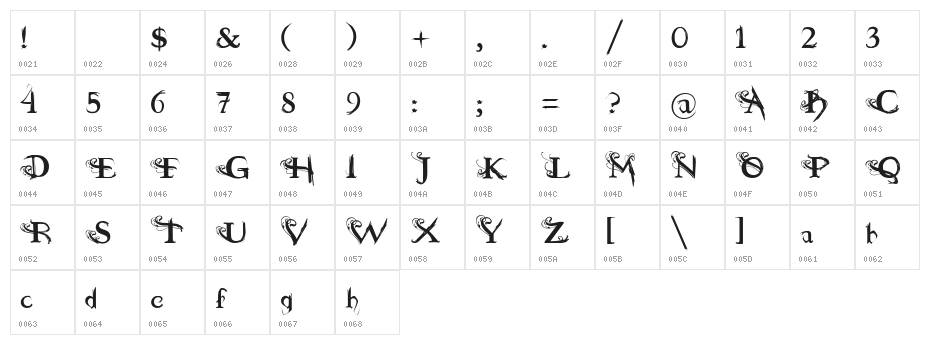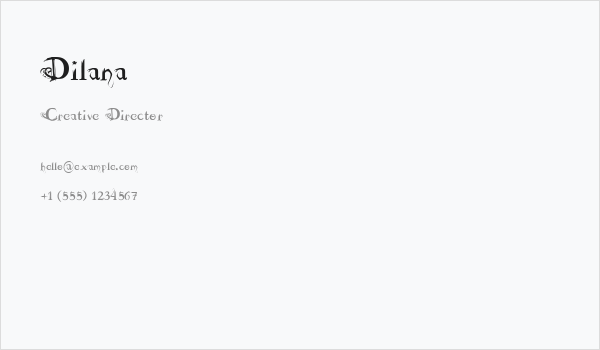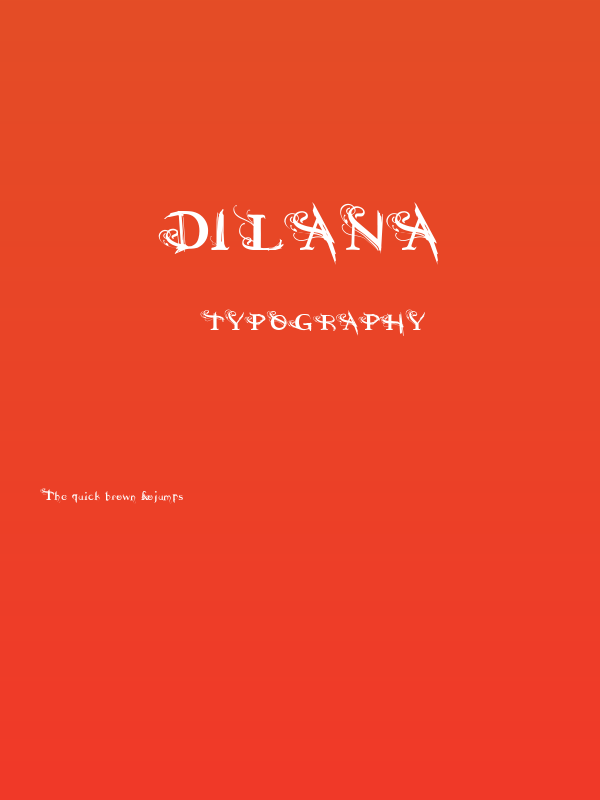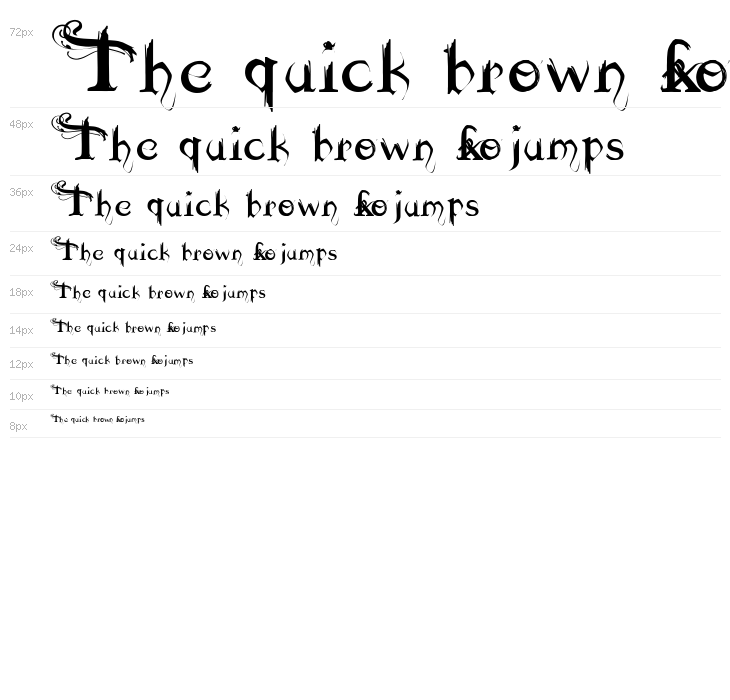
Dilana Font
Dilana Description
This font features an elaborate and decorative style with intricate swirls and flourishes extending from the characters, giving it a distinctly ornamental appearance. The uppercase letters are particularly embellished, with each character showcasing unique, artistic extensions that resemble vines or tendrils. The lowercase letters maintain a similar decorative flair but are slightly more restrained, ensuring readability. The numerals are bold and consistent with the overall ornate theme, while the special characters integrate seamlessly with the rest of the design. This font is ideal for projects that require a touch of elegance and sophistication, such as invitations, greeting cards, or branding for luxury products.
Use CaseHeadlines, Logos, Decorative text
Proposed ProjectsIdeal for wedding invitations, luxury branding, decorative posters, and artistic projects.